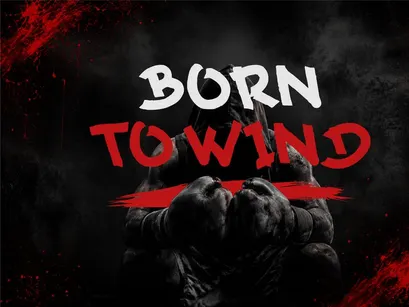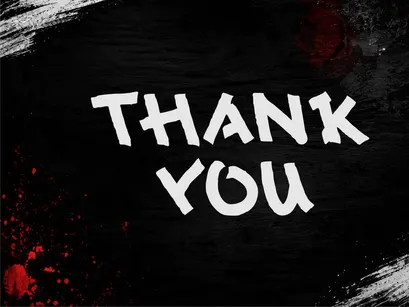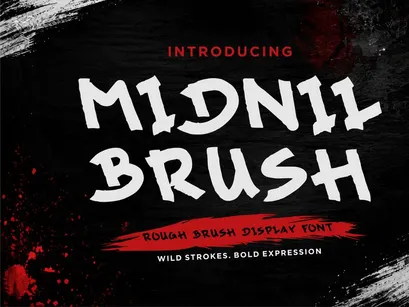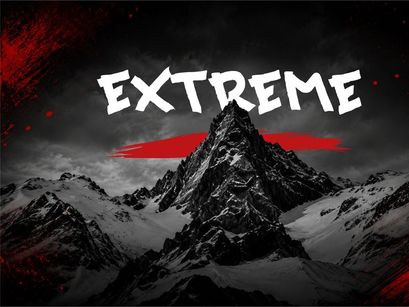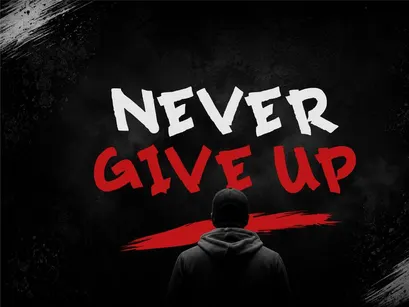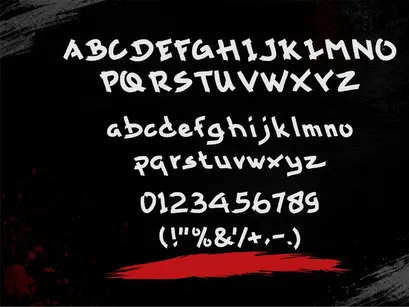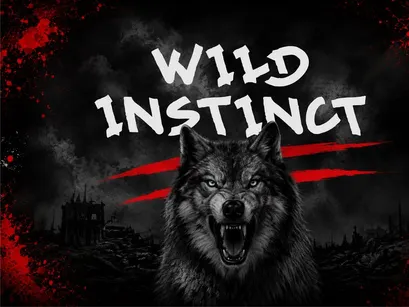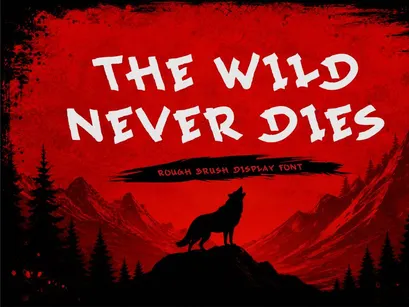
Midnil Brush – Wild Stroke Display Font
Midnil Brush is a bold and expressive rough brush display font designed to bring raw energy, rebellious character, and handmade attitude to your designs. Its irregular strokes, edgy shapes, and textured appearance create a powerful visual impact that stands out instantly.
Perfect for posters, streetwear branding, album covers, music artwork, sports graphics, event posters, merchandise, logos, social media designs, and other creative projects that need a strong and unconventional look.
With its wild brush style and distinctive personality, Midnil Brush is made for designers who want their typography to feel bold, energetic, and unapologetically creative.